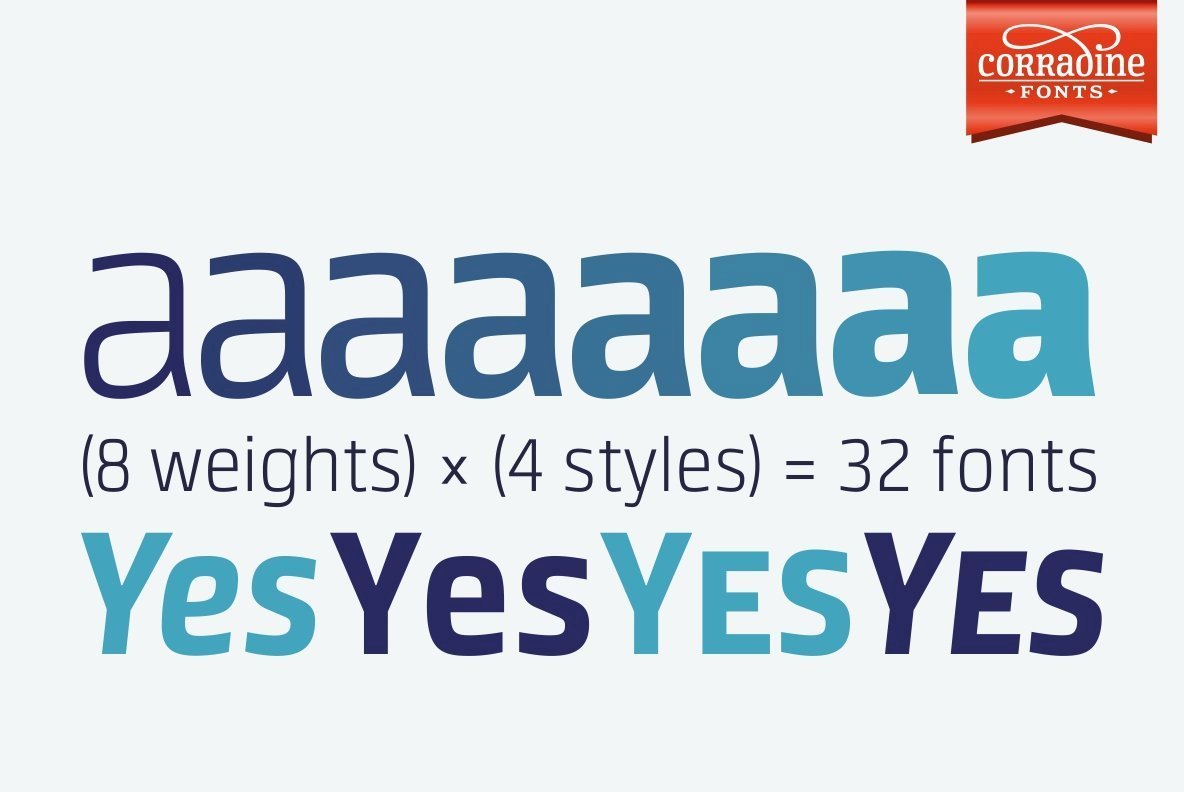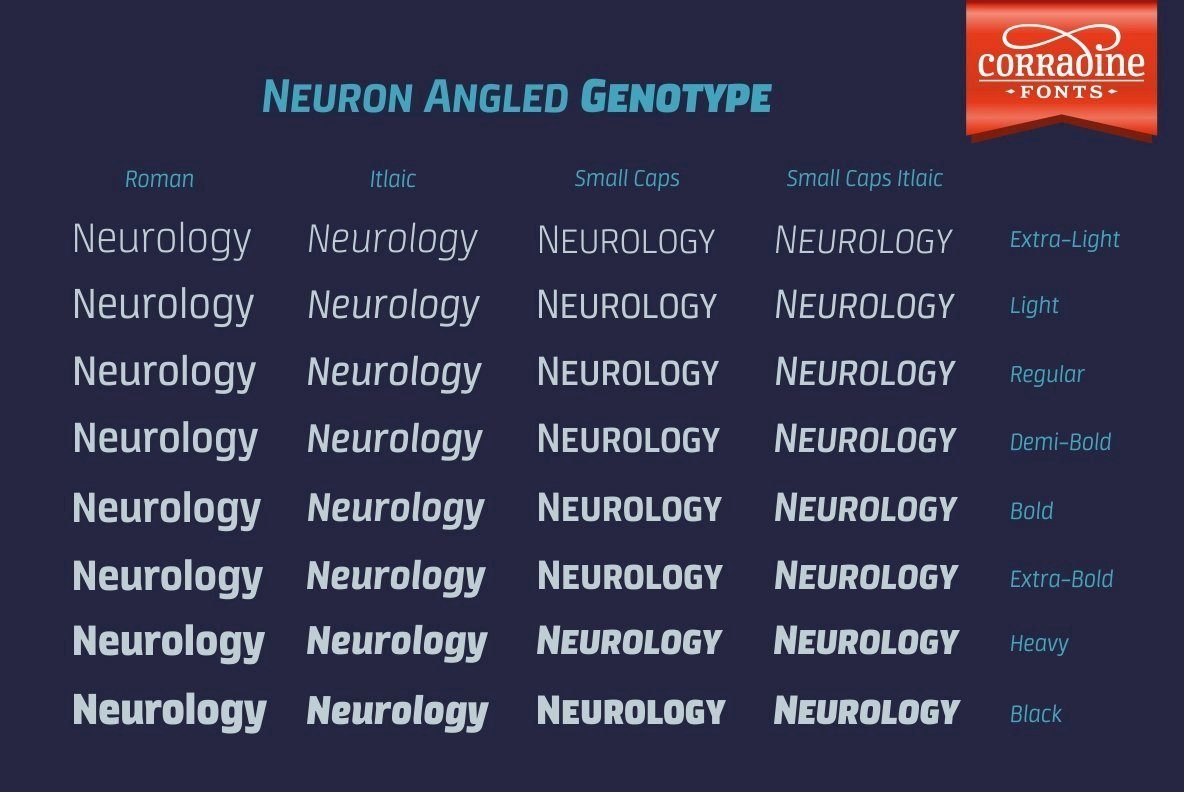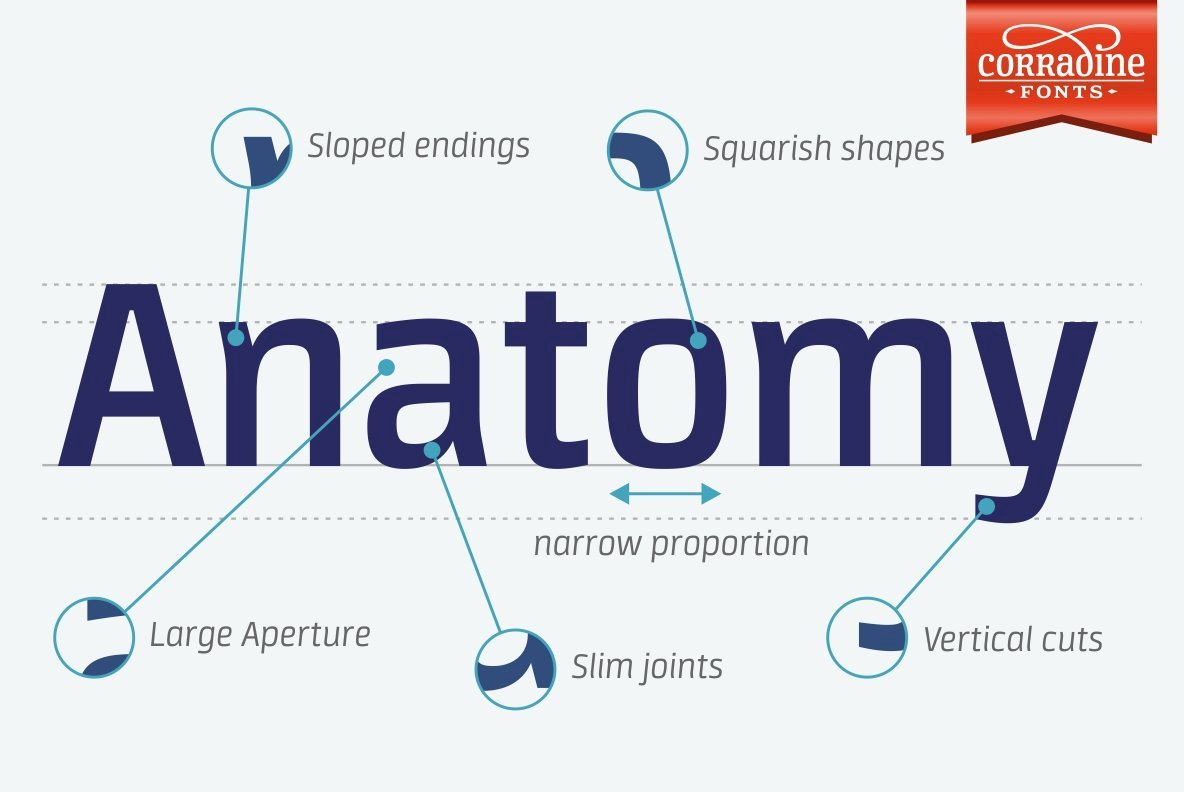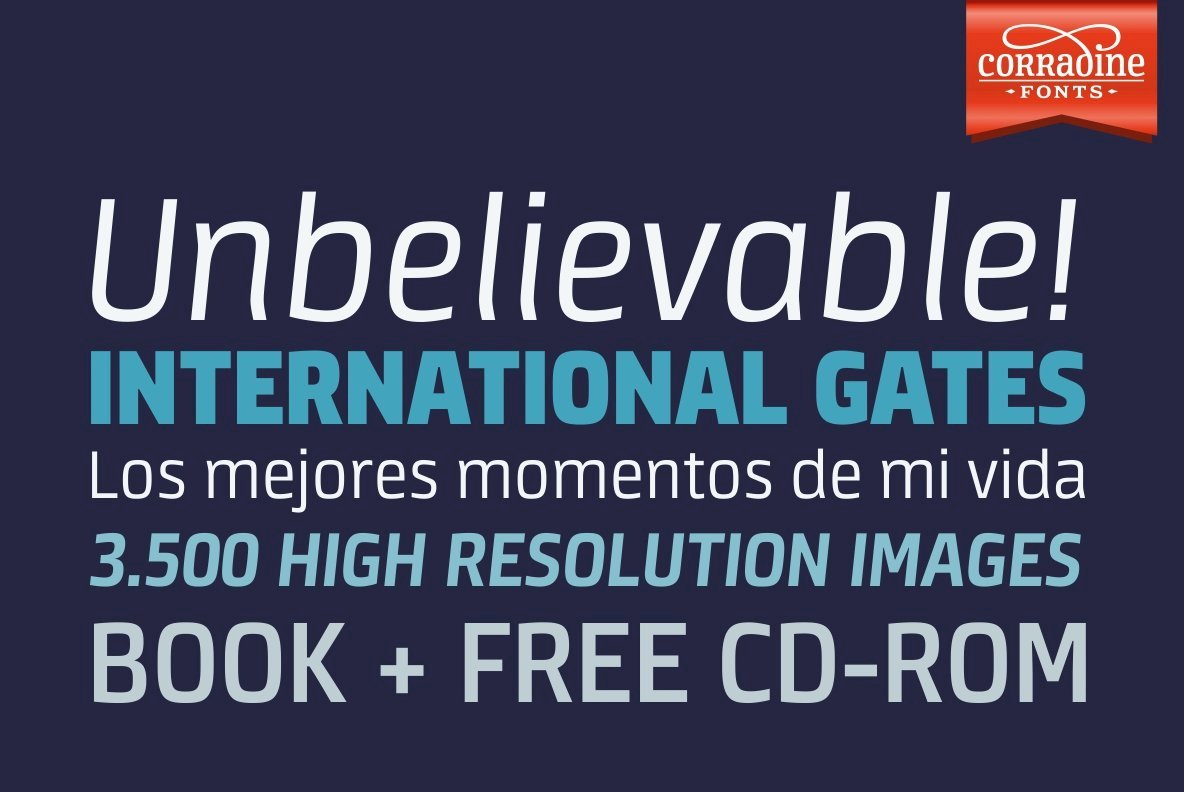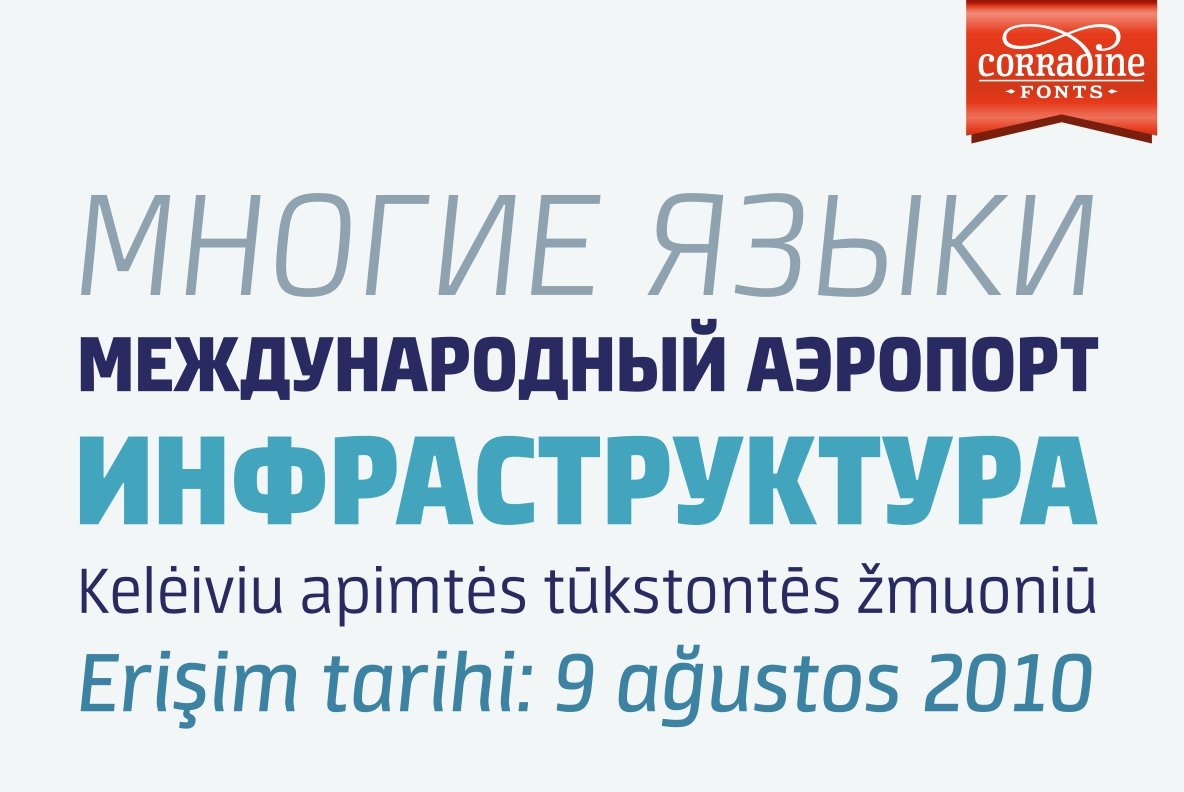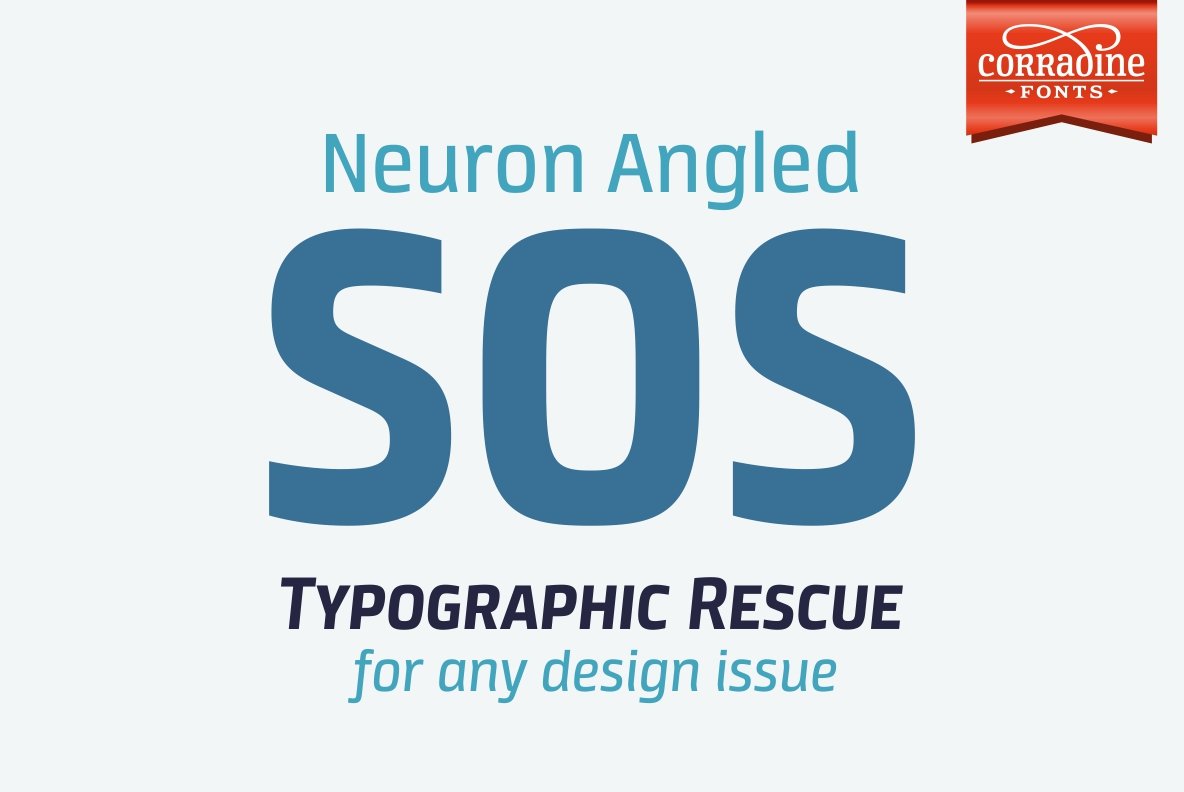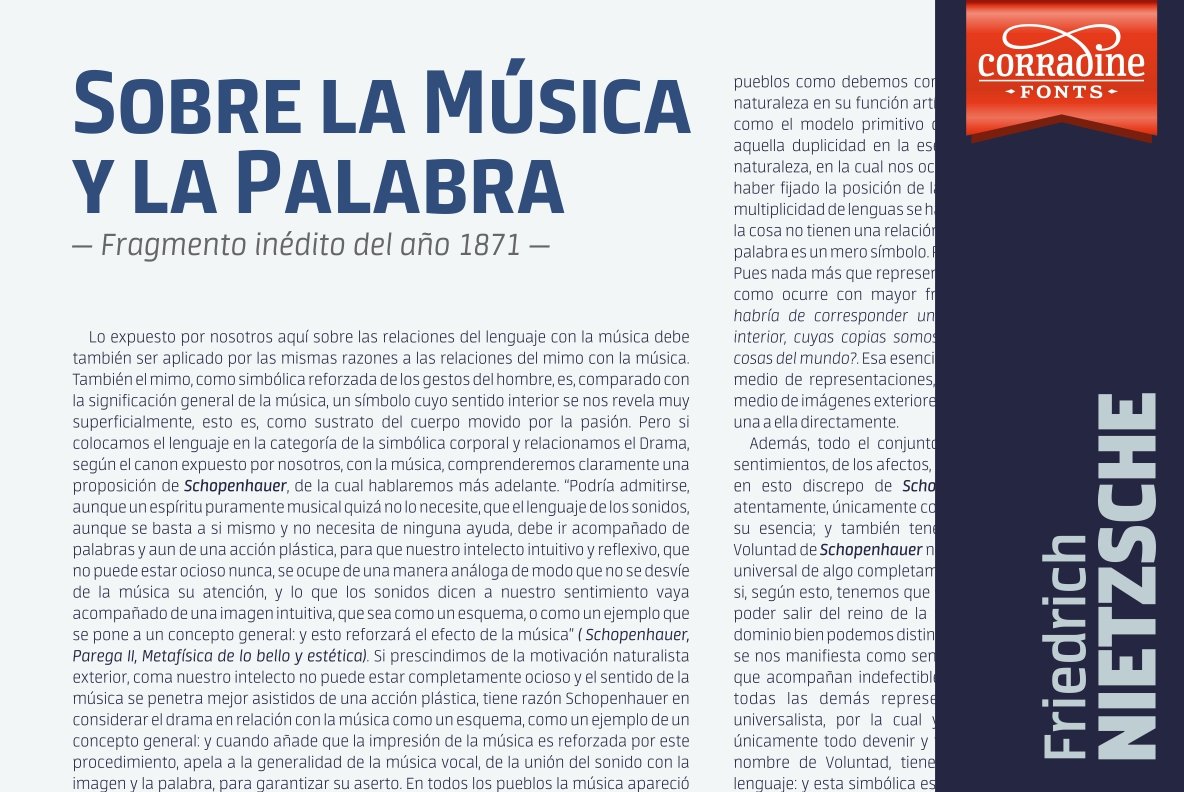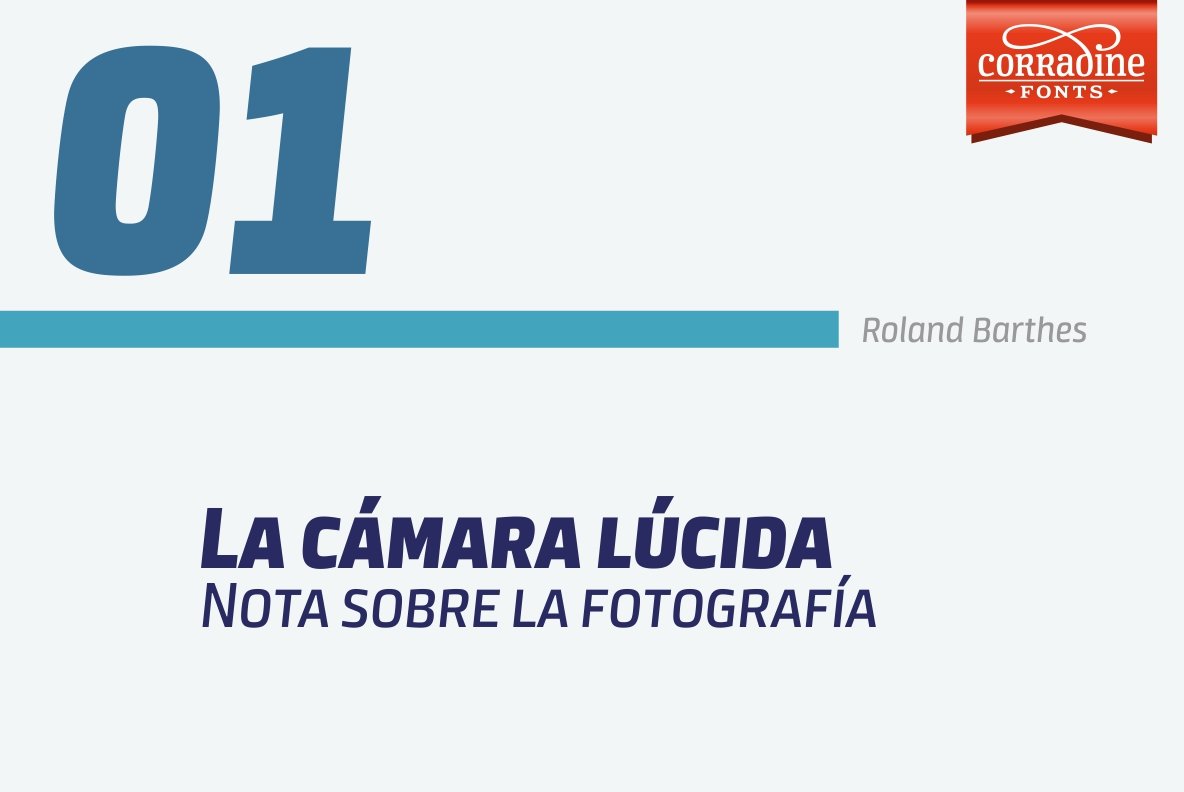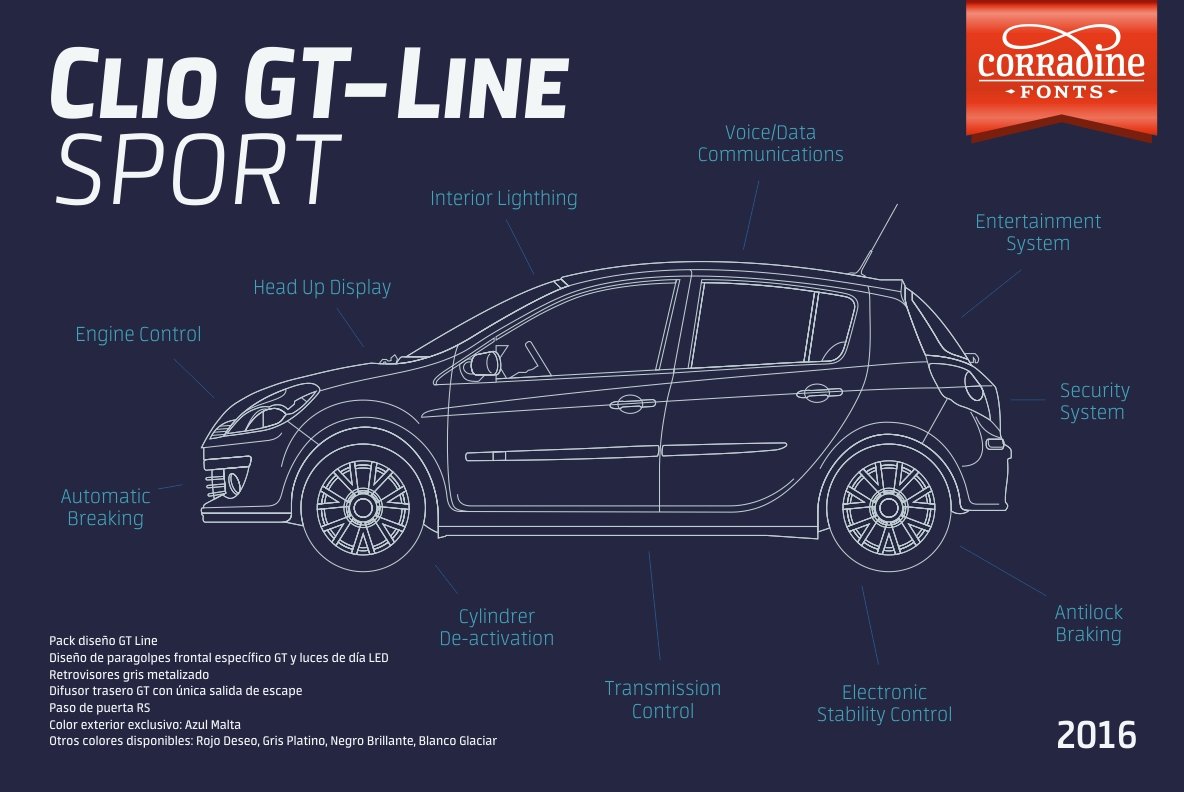
Neuron Angled Font
Neuron Angled is based in the idea of Neuron, the original font designed in 2012 by Corradine Fonts' team, keeping from its predecessor the proportions and slight narrowness. In this version the rounded edges are replaced by sharp contours and flat endings.
A broader typographic system is proposed in Neuron Angled to obtain a versatile and modern typeface without missing its original distinctive style.
The neutral aspect of the family allows its application in a wide range of projects specially in those related with branding, signage and editorial design.
The Neuron Angled family consists of four styles with eight weights each one, for a total of thirty two fonts. The different fonts of the family are not just complementary to each other, but can be used to complement the original version of Neuron.
Its wide character map provides coverage for Western European, Eastern European and Cyrillic scripts.